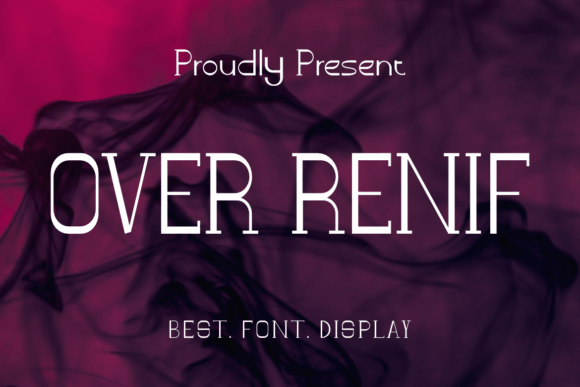
Welcome to the world of Over Renif, the font destined to transform your creative ventures into awe-inspiring realities. This bold and contemporary serif font exudes sophistication, making it an ideal choice for a myriad of branding projects, from captivating logos and empowering t-shirt designs to immersive esports graphics and beyond.
Indulge in the versatility of Over Renif, a font that adapts seamlessly to a wide spectrum of contexts. Its striking presence adds an air of elegance to websites, brochures, and social media posts, while its readability ensures effortless communication in reports, presentations, and e-books. Experience the allure of a font that effortlessly elevates your projects, leaving an indelible mark on your audience.
As you navigate the realm of typography, discover the distinctive characteristics of Over Renif. Its meticulously crafted letterforms embody a harmonious blend of strength and grace, with meticulously drawn curves and sharp, precise serifs that command attention. Each glyph has been carefully designed to optimize readability, ensuring your message shines through with clarity and impact.
Unleash the boundless potential of Over Renif, a font that empowers you to craft logos that resonate, t-shirt designs that captivate, and esports graphics that ignite passion. Its versatility extends to web design, print materials, and digital marketing, enabling you to create a cohesive brand identity that resonates with your target audience.
Immerse yourself in the world of Over Renif and unlock a new realm of creative possibilities. Let your imagination soar as you explore its diverse applications, transforming ordinary designs into extraordinary masterpieces. Dive into a typographic adventure where boldness meets elegance, and watch your creations flourish with a font that truly sets them apart.